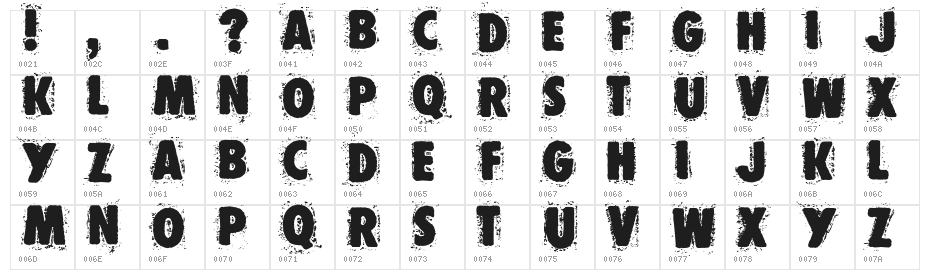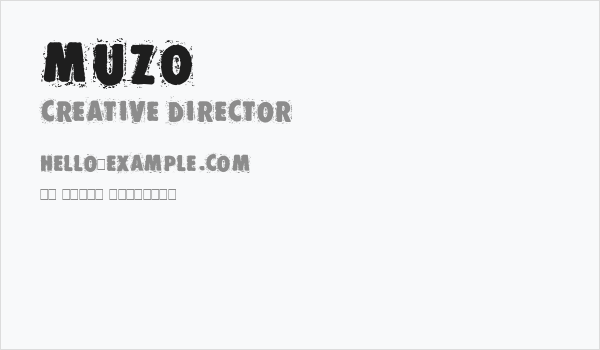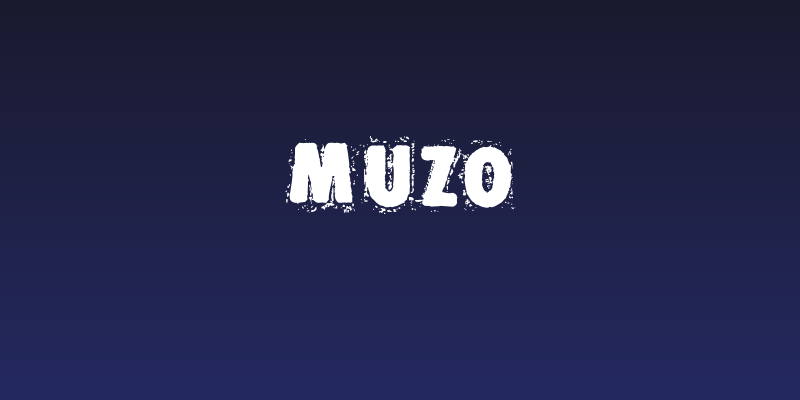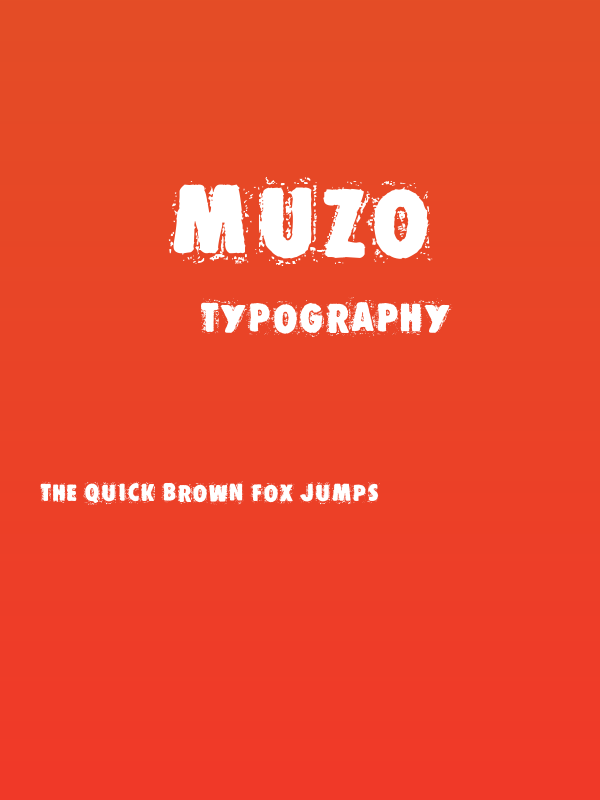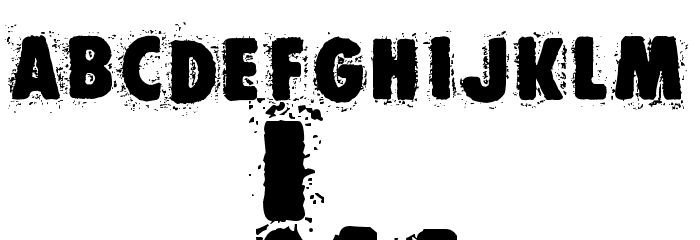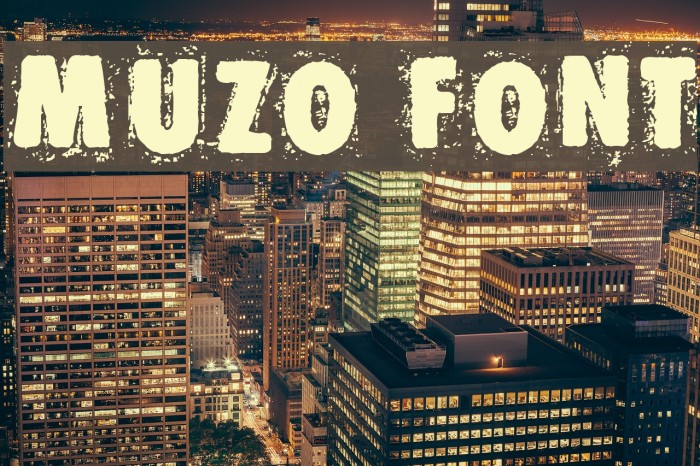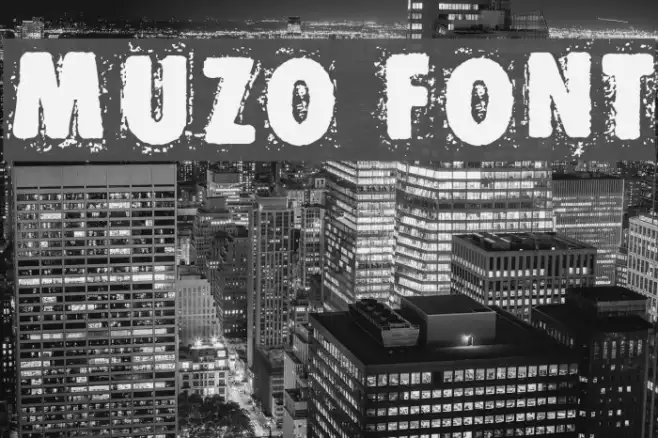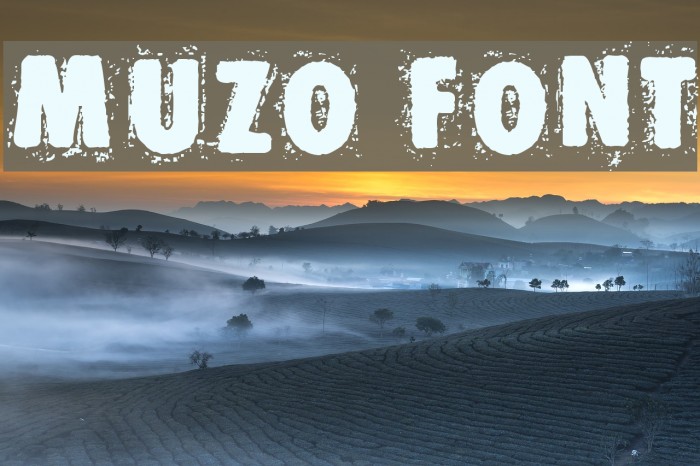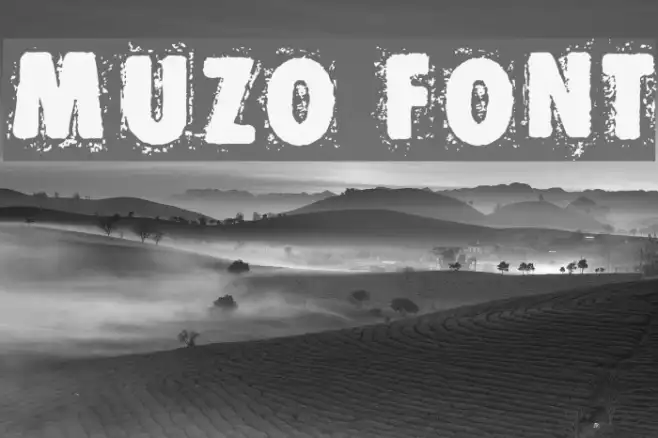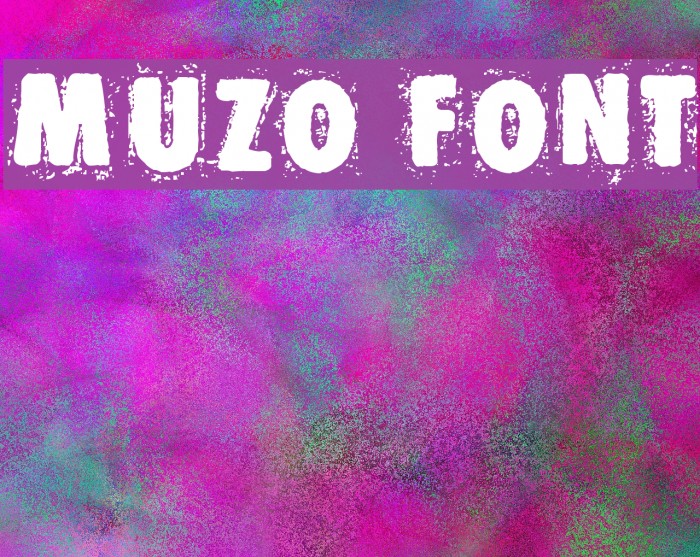
Muzo Font
Muzo Description
This font features a bold, distressed style with a rough, textured appearance that gives it a rugged and vintage feel. The uppercase letters are prominently displayed, showcasing a strong presence with slightly irregular edges that mimic a worn or weathered look. The font's design is reminiscent of old printing techniques, where ink might have bled or faded over time, adding to its authentic and gritty aesthetic. The characters are evenly spaced, maintaining readability while still embracing the unique, imperfect charm of its design. This font is ideal for projects that require a touch of nostalgia or a bold statement, such as posters, album covers, or branding for products that emphasize a rustic or handcrafted quality.
| Proposed Projects | Ideal for posters, album covers, vintage branding, and rustic-themed designs. |